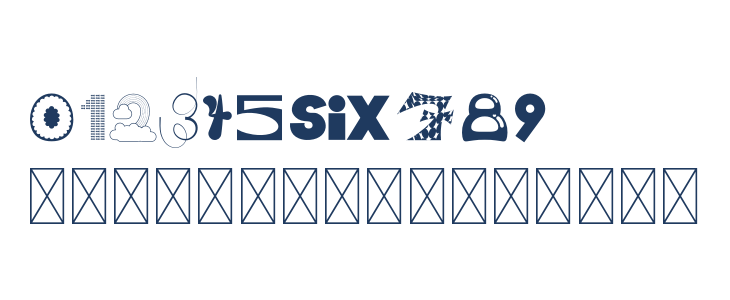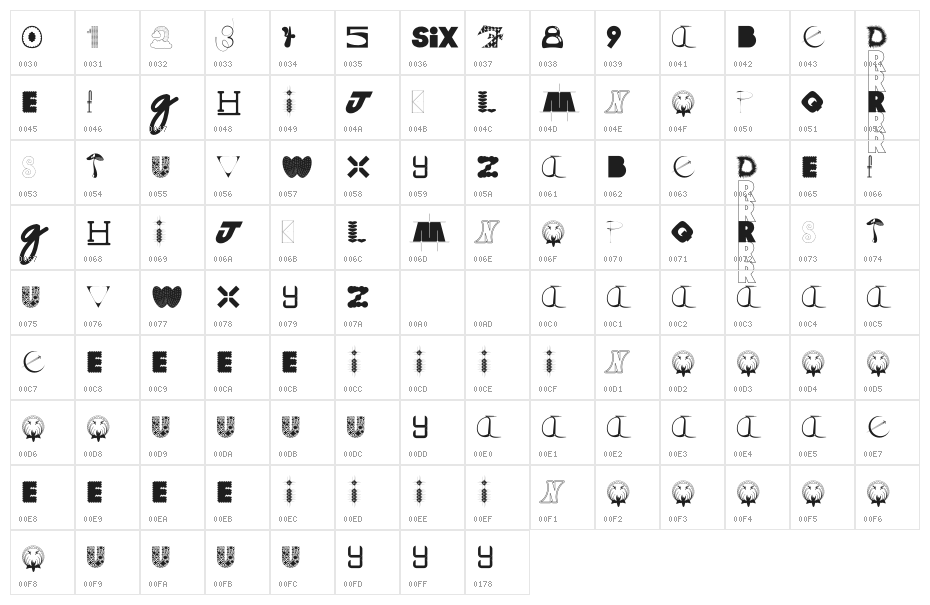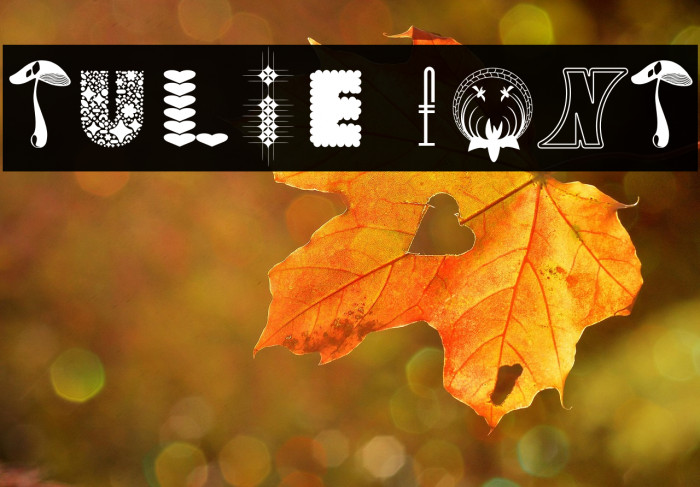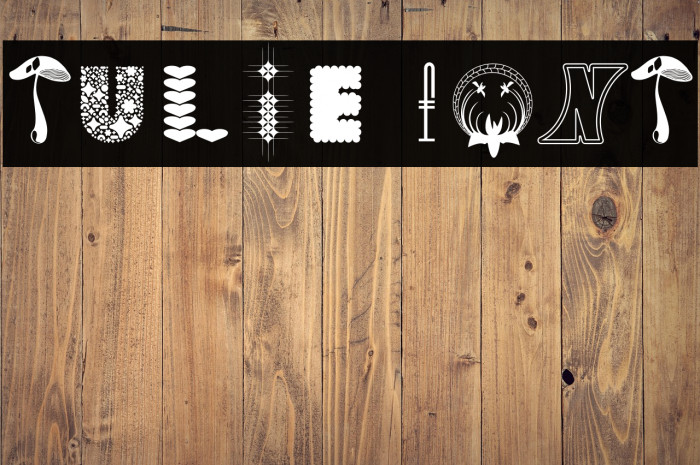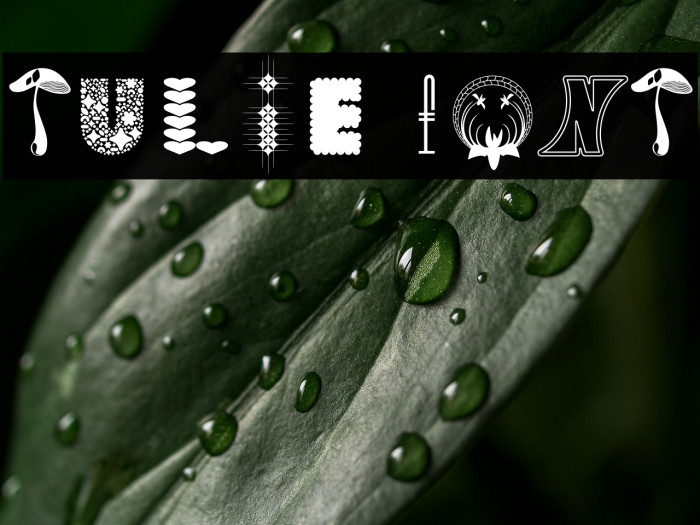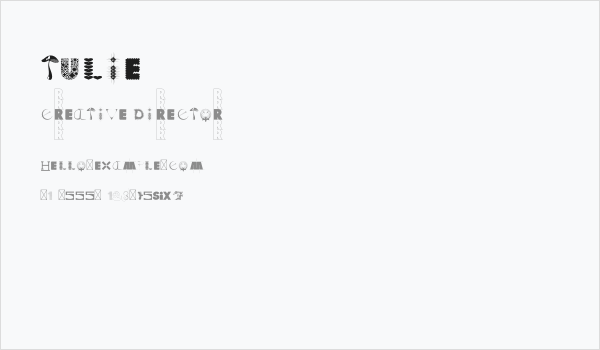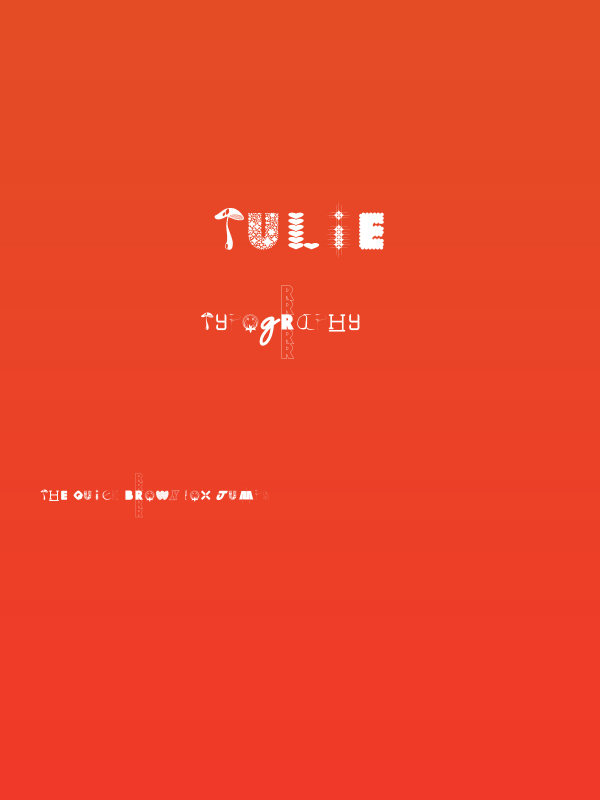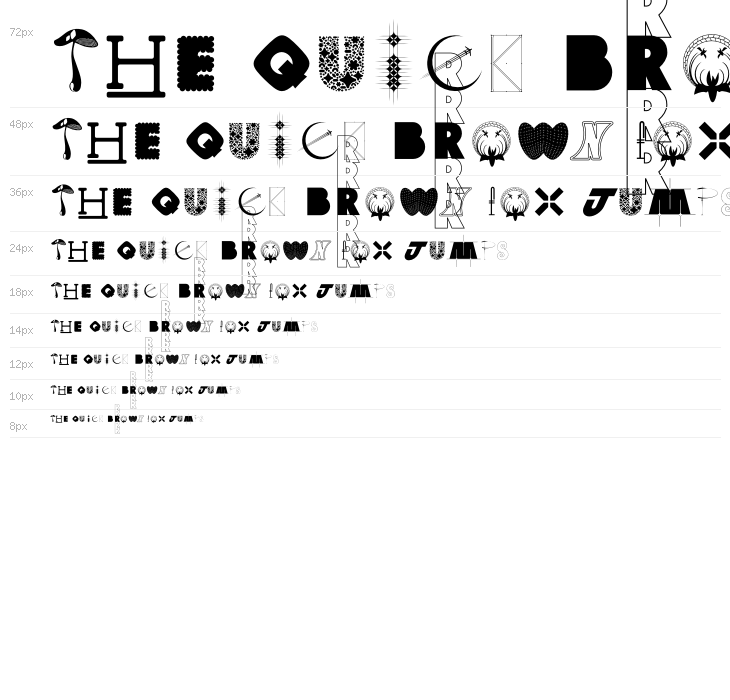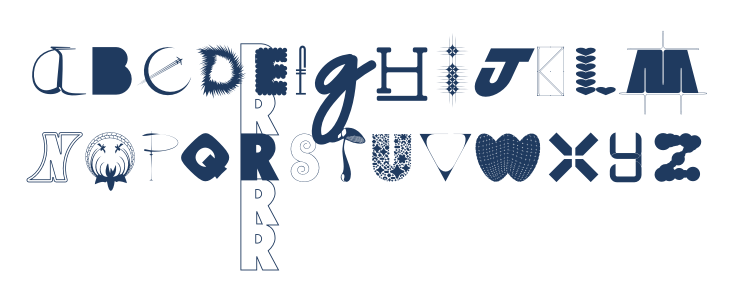
Tulie Font
Tulie Description
This font is an eclectic and playful collection of characters, each with its own unique style and flair. The uppercase letters range from bold and geometric to whimsical and textured, offering a diverse visual experience. The lowercase letters continue this theme with a mix of script-like forms and abstract designs. Numbers are equally varied, featuring elements like clouds and checkerboard patterns. Special characters are creatively designed, adding to the overall artistic feel. This font is perfect for projects that require a touch of creativity and individuality.
| Proposed Projects | Ideal for creative projects such as posters, album covers, and artistic branding materials. |